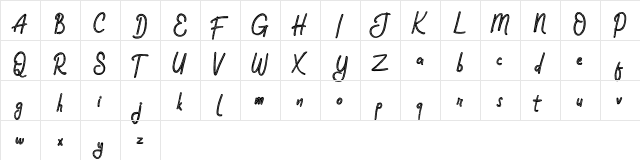
HappyFun FREE Regular
Design Context for HappyFun FREE Typeface
HappyFun FREE has an approachable, lighthearted character — its loose, expressive forms are well-suited to children's content, casual branding, and fun-first design.
Well-suited to food and beverage brands with personality, educational materials, and fun-forward identities.
Font Pairing: Pairs well with a rounded or humanist sans for body copy, maintaining the friendly tone without relying on HappyFun FREE to carry extended reading.
Pro Tip: Use HappyFun FREE at larger display sizes where its expressive character can land. Pair with a clean, simple sans for body copy to maintain readability.